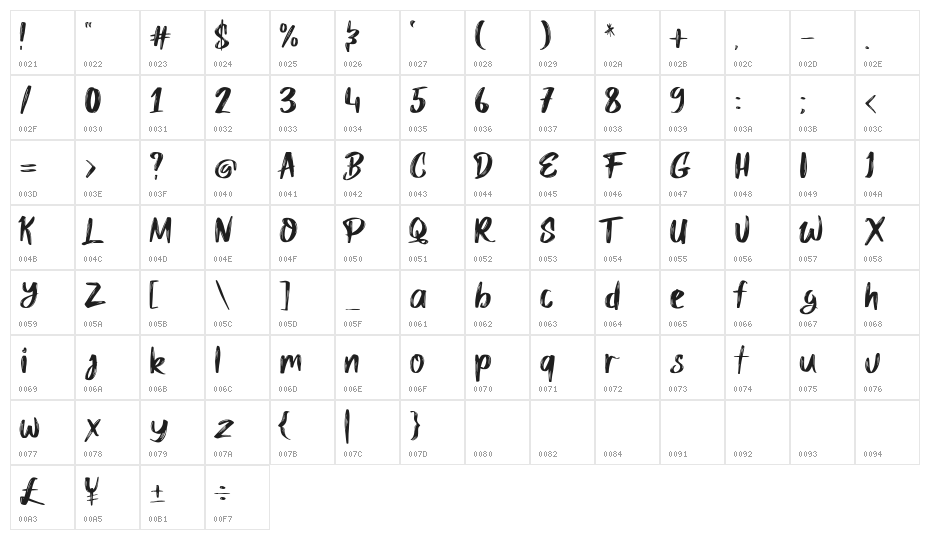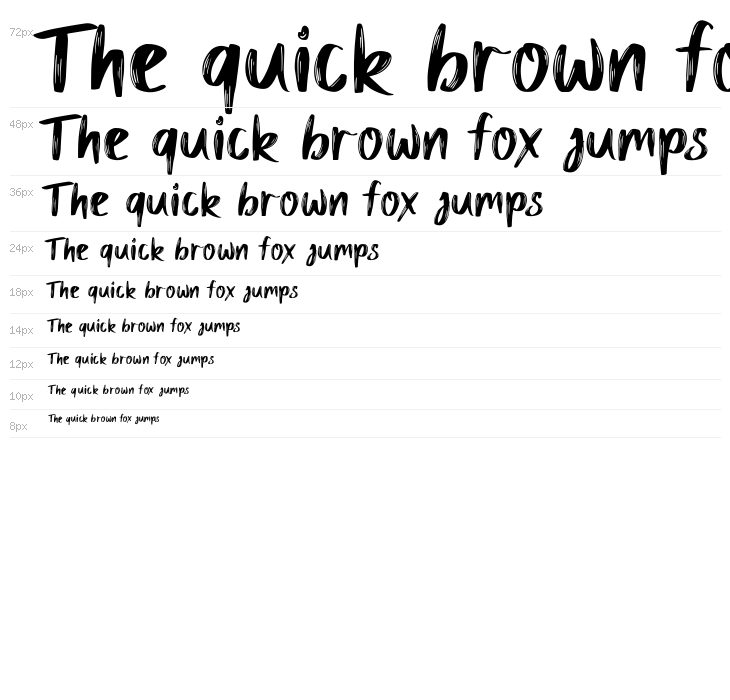
Mybread Regular Font
Mybread Regular Description
This font exhibits a bold, expressive style with a handwritten appearance. The strokes are thick and dynamic, giving it a lively and energetic feel. Each character is crafted with a brush-like texture, adding a sense of movement and fluidity. The uppercase and lowercase letters maintain a consistent style, with slightly exaggerated curves and angles that enhance its playful nature. The numbers and special characters follow the same design principles, ensuring a cohesive look across all elements. This font is ideal for projects that require a personal touch or a creative flair.
| Proposed Projects | Ideal for branding, posters, social media graphics, and creative projects requiring a personal touch. |